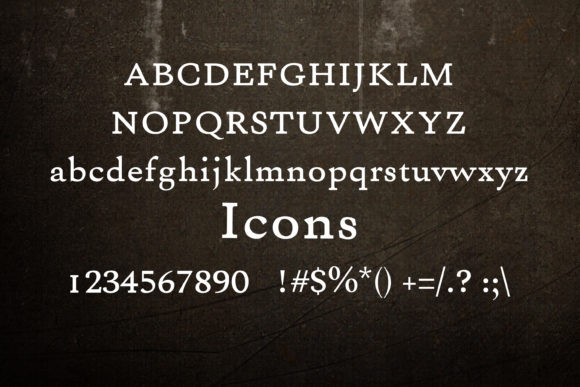
Introduction to Icons Font
Icons is a simple serif typeface with high readability.
It is perfectly suited for a wide variety of projects .
Key Features of Icons Font